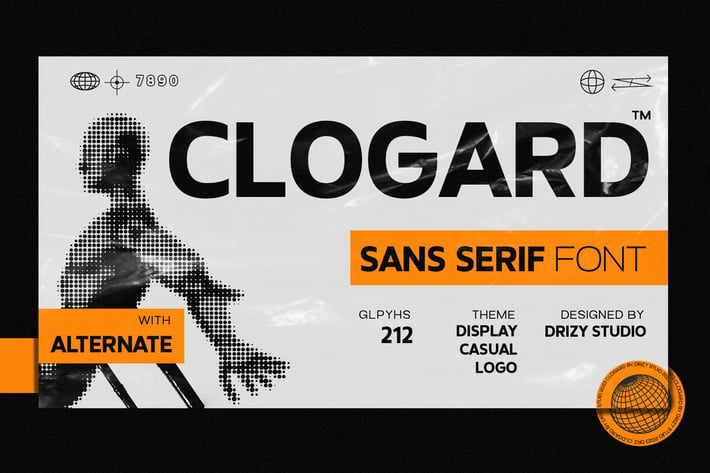
Clogard - Sans Serif Bold Display Font
Clogard is a bold sans serif display font from Drizy Studio. Offering all the styles you need for classic and modern theme projects.
Clogard features:
Punctuation & Numbers
Ligatures
Alternates
Spice up your project with this unique bold typeface!